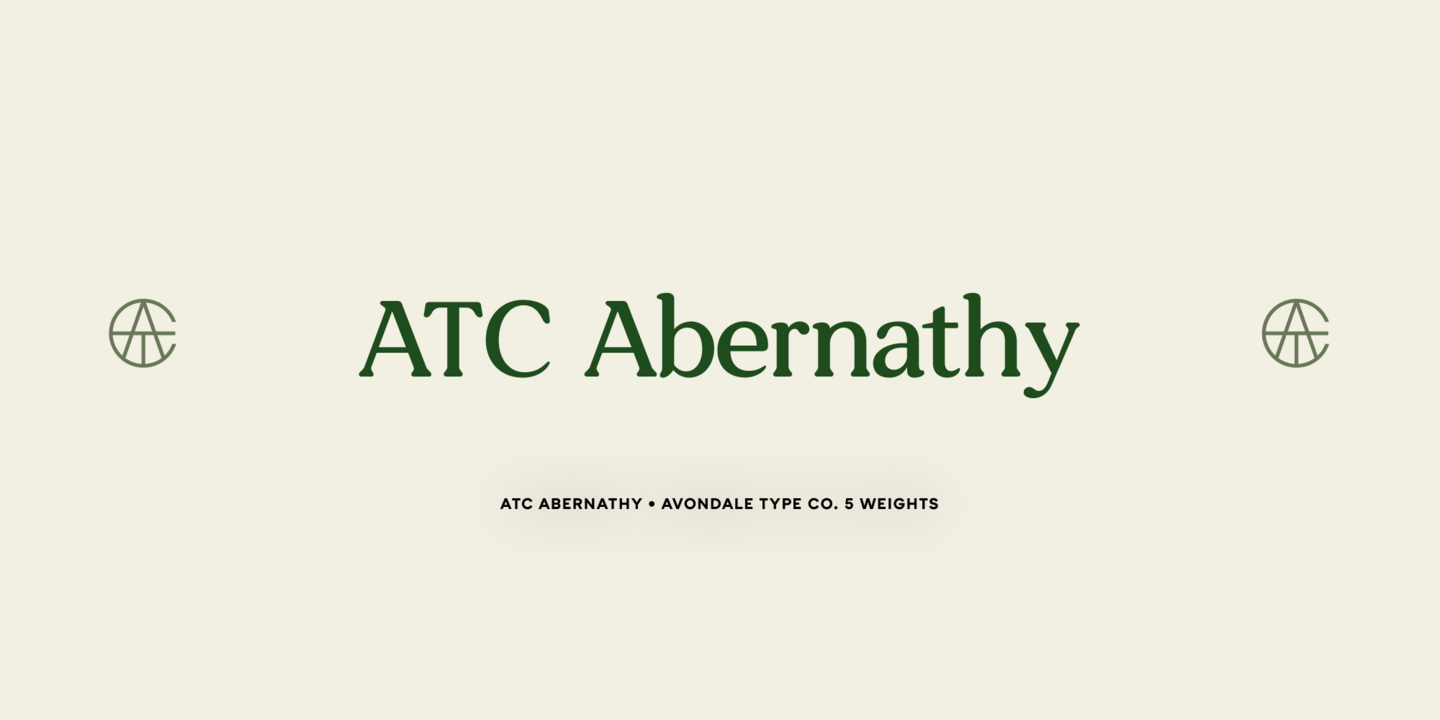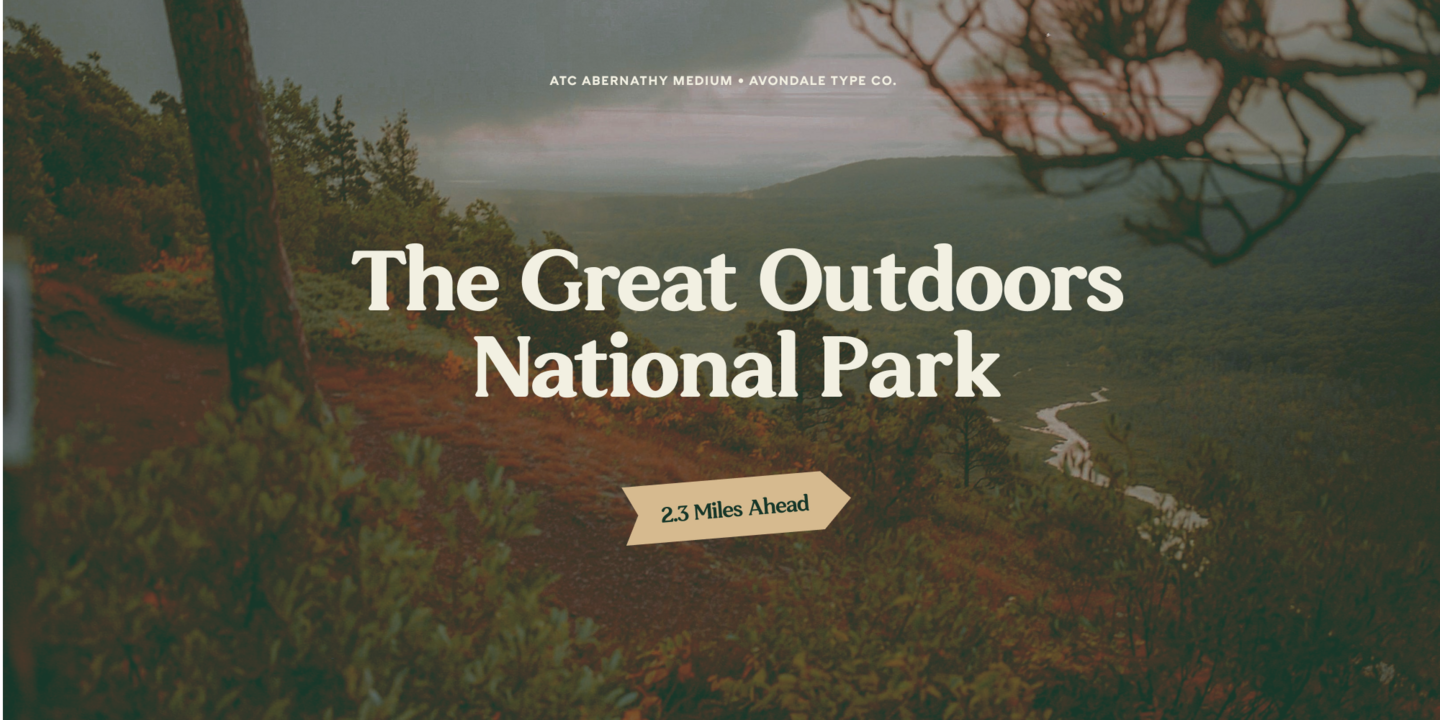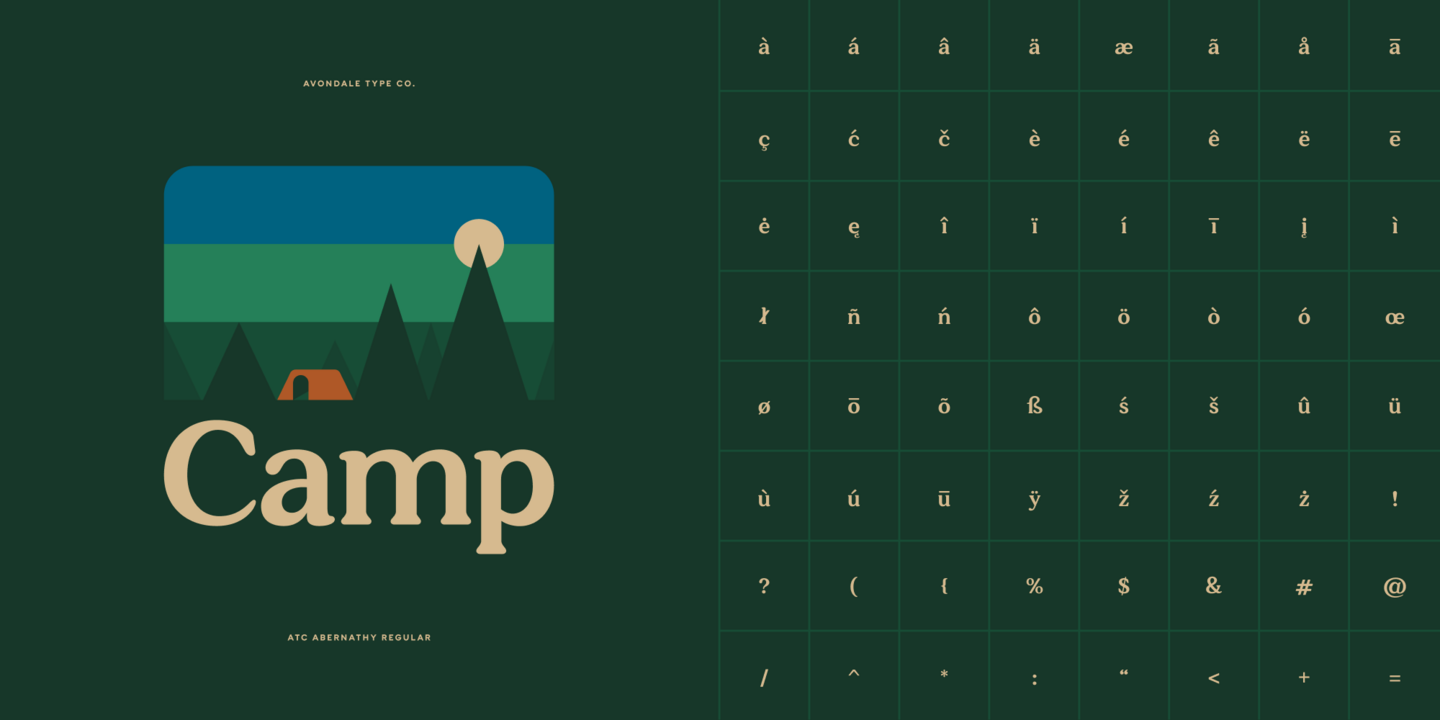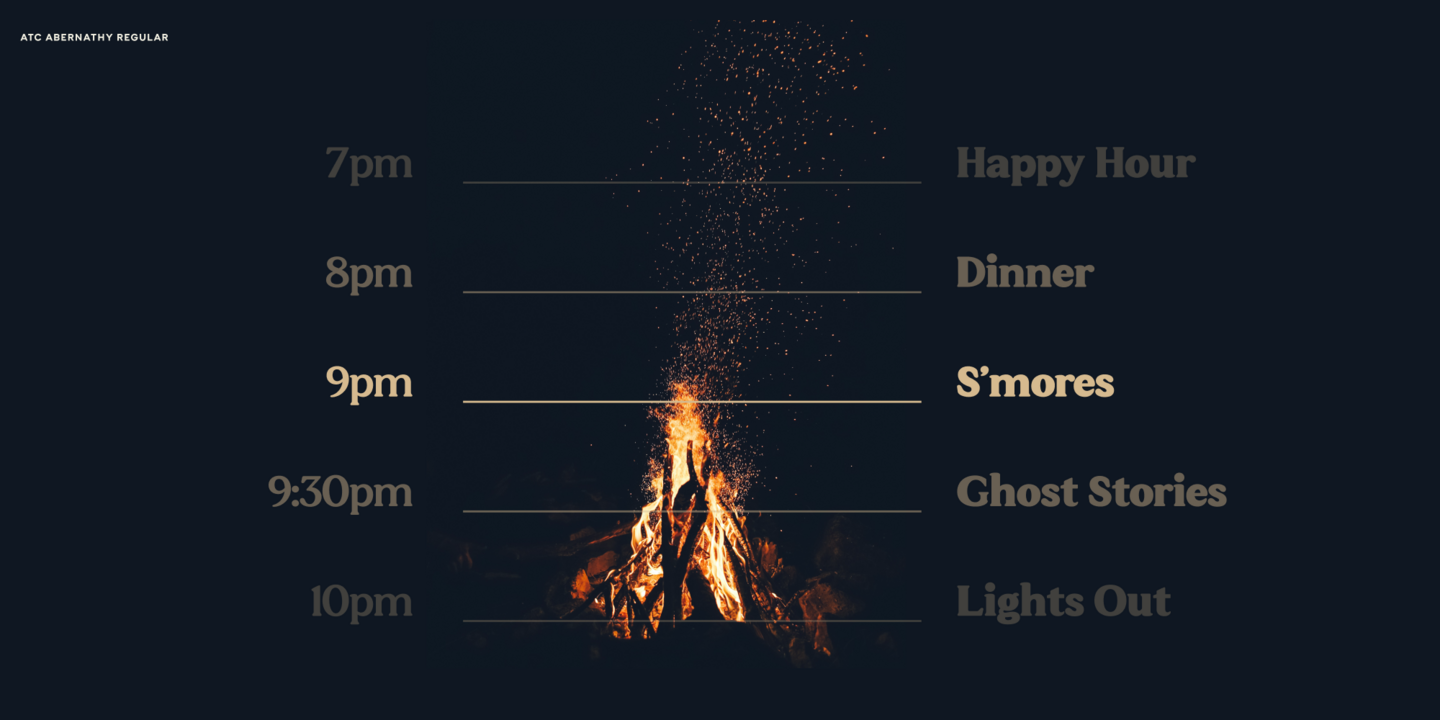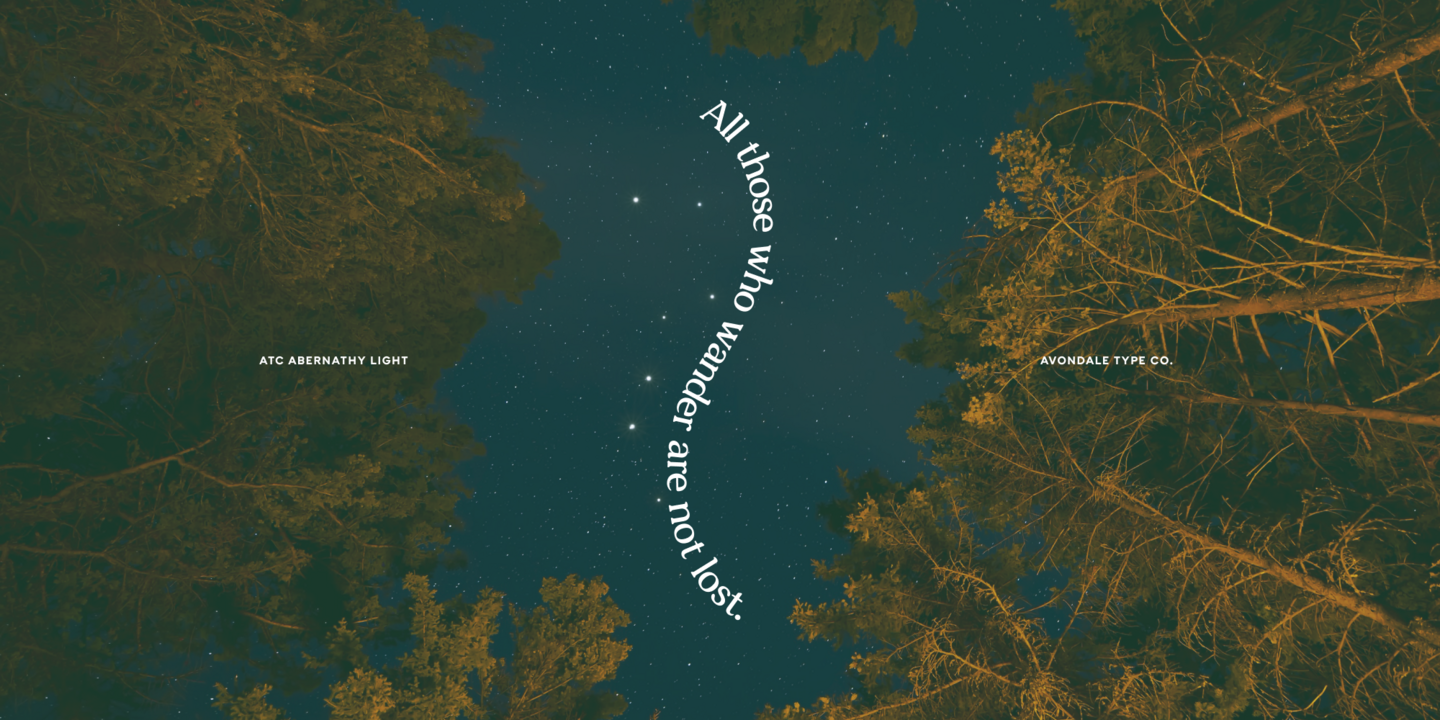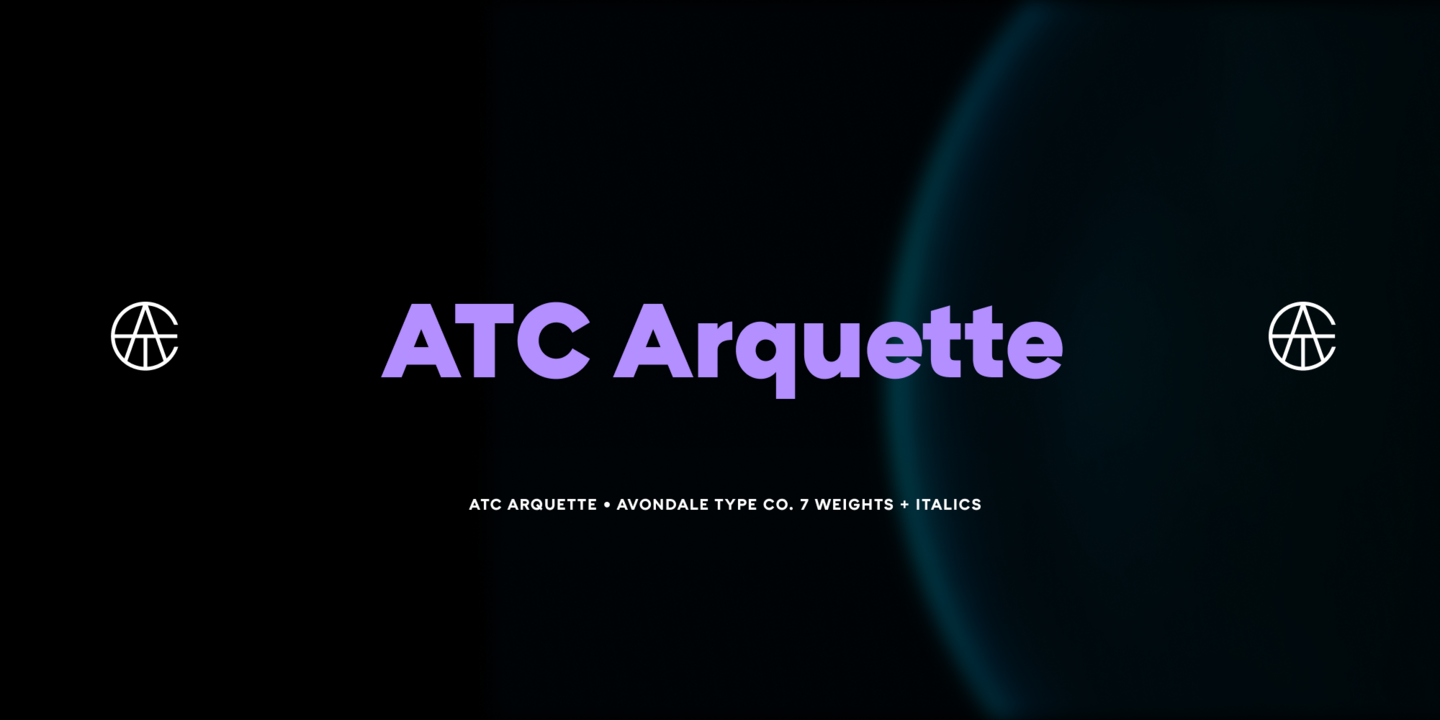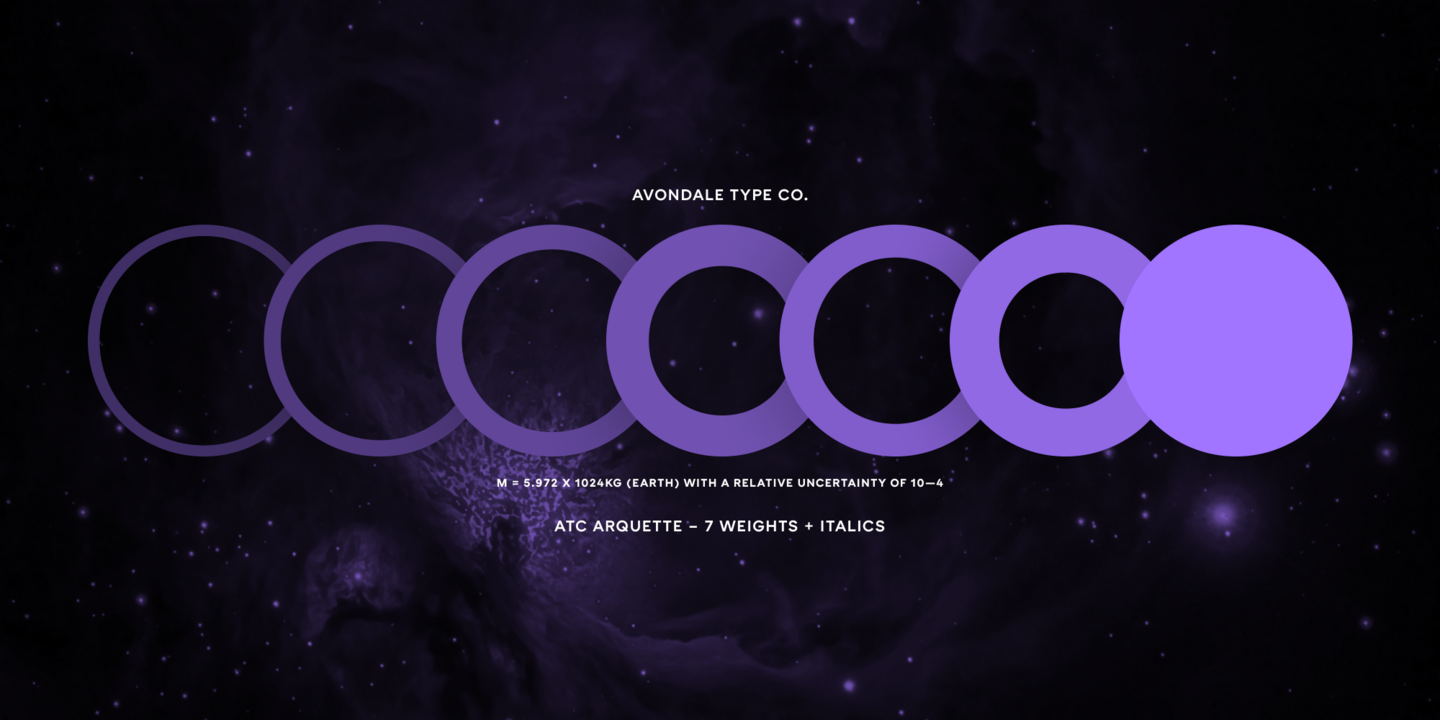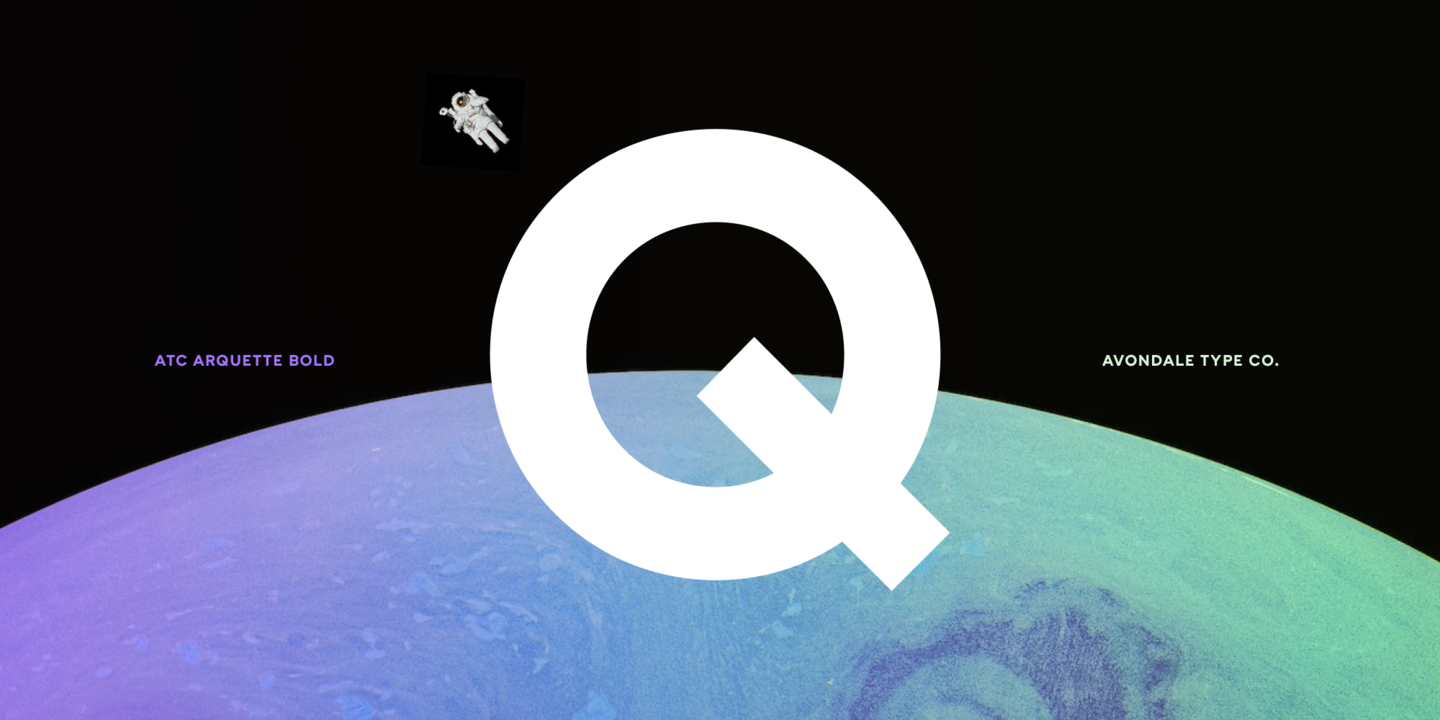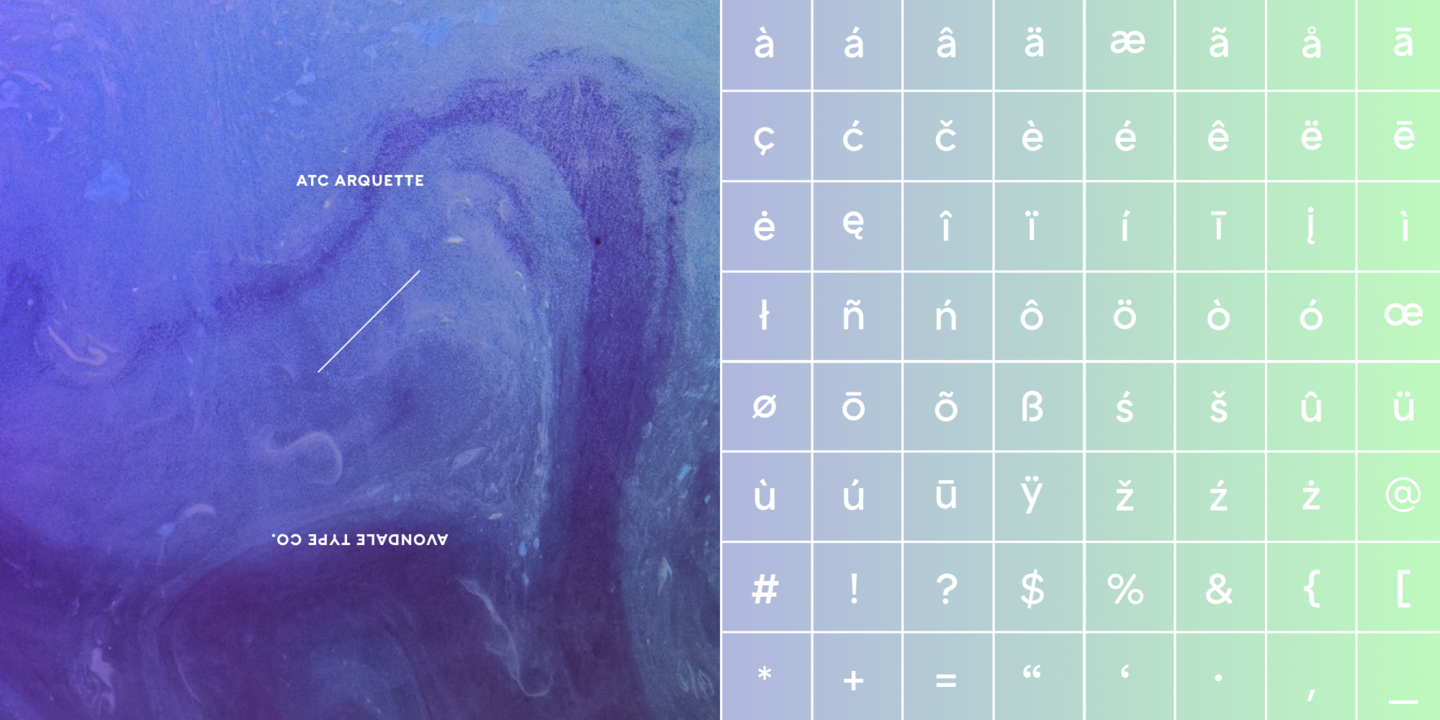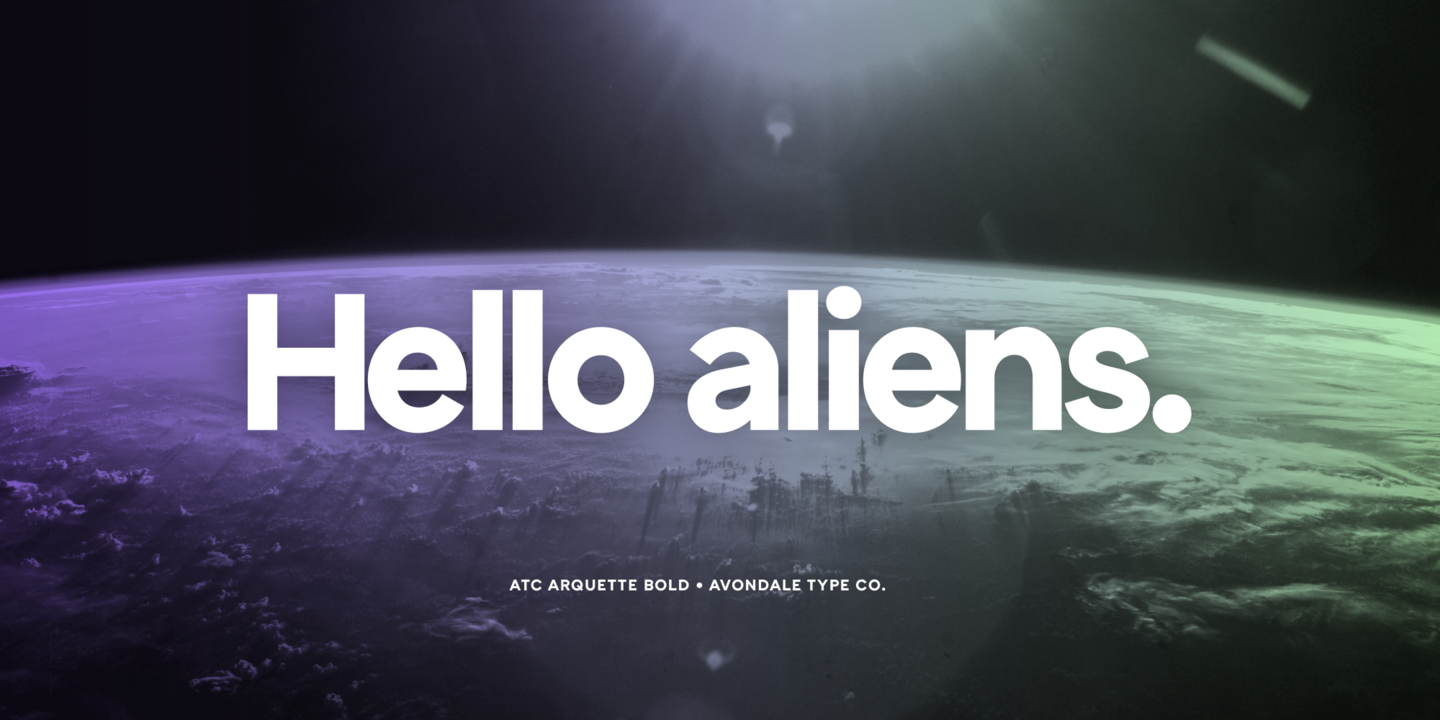
Popular Avondale Type Co. fonts.
ATC Duel is a strong, extra-heavy multi-width sans-serif display font with sharp edges and an extended horizontal span, inspired by the automotive industry. ATC Duel is a bold and impactful font that can be used to create striking headlines, logos, and branding materials that capture energy and excitement.
ATC Abernathy, is a soft serif typeface based on retro package design. With a modern influence, it bridges the gap between old and new. ATC Abernathy is a unique and versatile font that combines vintage charm with contemporary flair, making it an excellent choice for a wide range of design projects, from branding and packaging to editorial layouts and web design.
ATC Arquette, is a best-selling geometric sans-serif font created with minimal ornamentation to adhere with accessibility and visibility guidelines and be as visually legible as possible. Designed with a focus on clarity and legibility, ATC Arquette is an excellent choice for any project that requires a clean and modern aesthetic without sacrificing readability.
Avondale Type Co.
Avondale Type Co. is a typeface design studio, founded in 2014. We collaborate with clients and agencies across the globe to elevate typography, offering solutions ranging from branded font suites, custom lettering, wordmark development and refinement, and licensing partnerships.
Meet the Team.
Creative Director
Jason Schwartz
Jason is a Creative Director and partner at Avondale Type Co./ Bright Bright Great in Chicago. He has been leading the digital and UX journey for over 20 years.
Type Designer
Christian Dexter
Christian is a typeface designer with an affinity for brand creation. He leads projects from initial ideation to launch day and beyond. He specializes in vector drawing, word marks, logos, icons, and typefaces with a hyper-focus on visual systems as a whole.
Type Apprentice
Hyunmin Kim
Hyunmin is a type apprentice currently studying Graphic Design at RISD. She is passionate about typography, information design, and graphic design history.